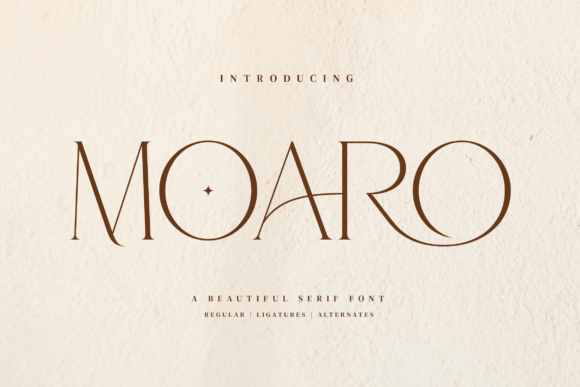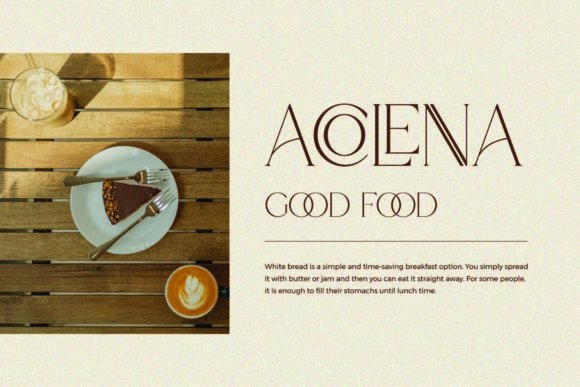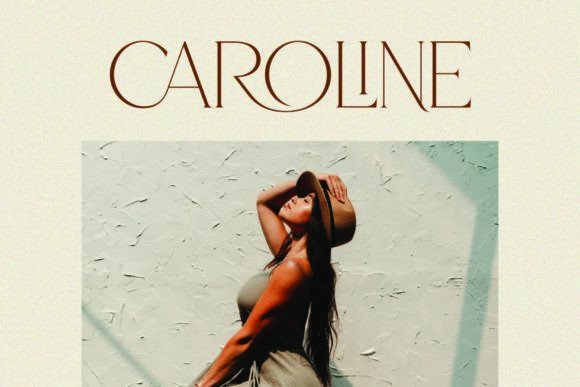
Moaro Font: Elegant Serif for Modern Logo Design & Branding
About the Moaro Font
Step up your design game with Moaro Font, a font that exudes confidence and style. Moaro is a stylish serif font, inspired by the famous minimalist logo perfect for the purposes of designing templates, brochures, videos, advertising branding, logos and more.
Moaro’s clean lines and minimalist aesthetic make it ideal for headlines, logos, and short-form text in branding materials and advertising. Its elegance shines in projects requiring a sophisticated yet understated feel, such as high-end product packaging or minimalist posters. However, its limited character set and relatively high x-height make it less suitable for body copy or extended reading.
For optimal visual harmony, pair Moaro with a complementary sans-serif like Open Sans for body text, maintaining readability while preserving the overall design’s sophistication. Alternatively, a geometric sans-serif such as Futura adds a modern contrast, enhancing Moaro’s clean lines. A touch of playful script, like Great Vibes, can be used sparingly for accents, injecting a subtle sense of personality without overpowering Moaro’s inherent elegance.
Moaro projects an air of refined modernism, conveying both confidence and understated sophistication. It’s the perfect choice for brands seeking a timeless yet contemporary image.
Moaro Font Usage Examples
Moaro Font Example